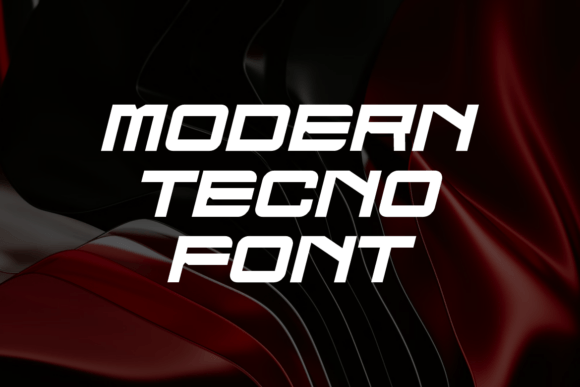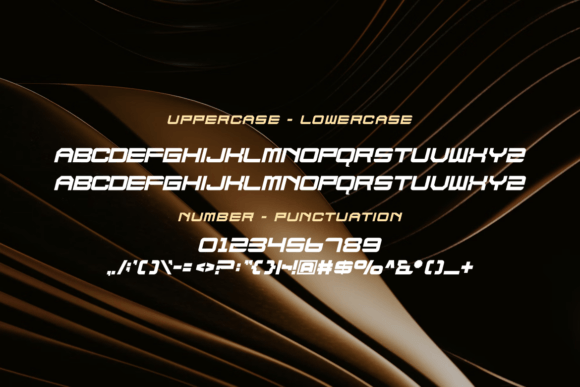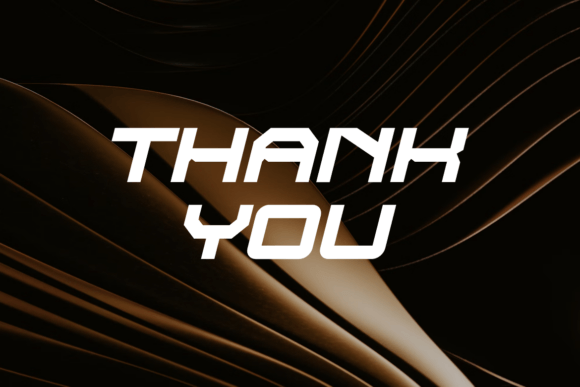
Introduction to Niquplex Font
Presenting our new product Niquplex Font – Modern Font is a bold and authentic display font.
This font is perfect for any branding project such as logos, t-shirt printing, creative products, and more extraordinary in a variety of contexts.
Key Features of Niquplex Font
Why Choose Niquplex Font?
Niquplex Font offers exceptional quality and versatility, making it a valuable addition to your design toolkit. Whether you’re creating for personal projects or commercial use, Niquplex Font delivers professional results.